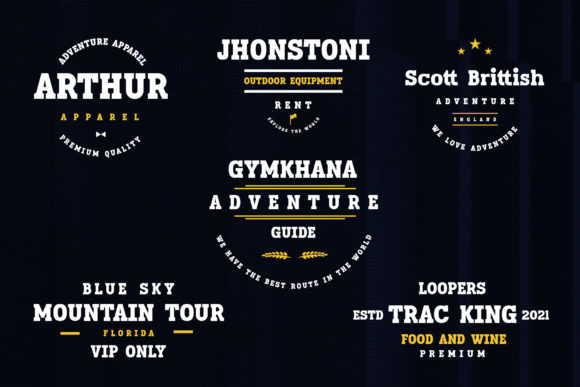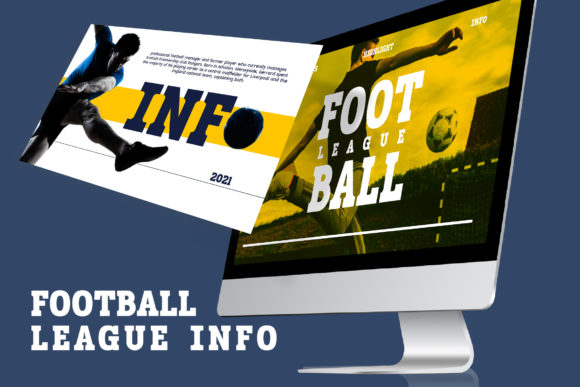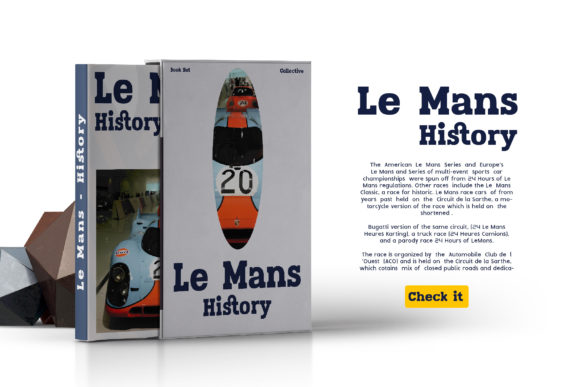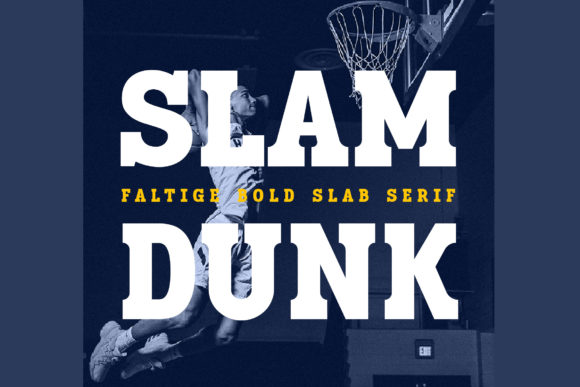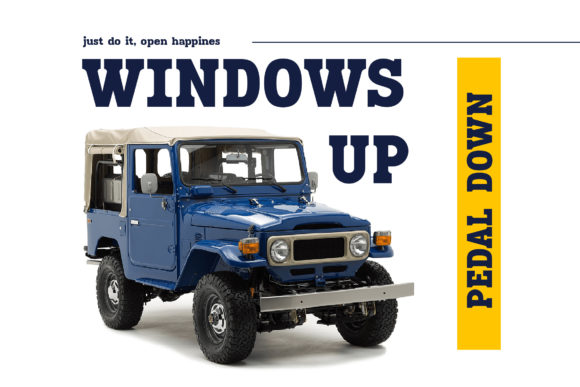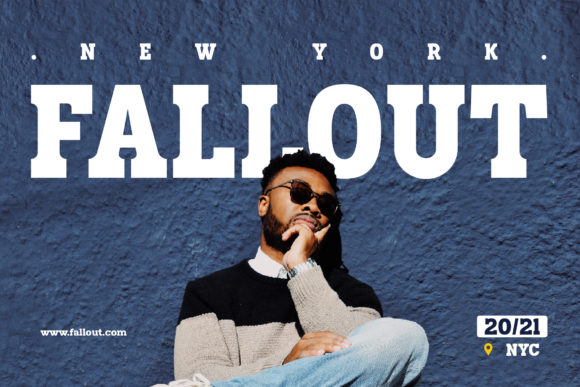
Introducing Faltige Font: Elevate Your Designs with a Bold Slab Serif
In the world of typography, a good font can make all the difference in creating visually stunning designs. If you’re a designer or crafter looking for a unique touch to elevate your projects, look no further than the Faltige Font. This bold slab serif font is expertly designed to make your creations stand out and leave a lasting impression.
What is Faltige Font?
Faltige is a carefully crafted bold slab serif font that exudes confidence and sophistication. Its sturdy and robust design makes it perfect for a wide range of applications, from web designs and business cards to posters, flyers, and more. With its distinctive character, Faltige Font is sure to add a touch of personality to any project.
Key Features of Faltige Font
- Bold and Eye-Catching: Faltige Font is designed to grab attention and make a statement. Its bold and sturdy design ensures that your text stands out from the crowd.
- Slab Serif Style: The font features a classic slab serif style, which adds a touch of sophistication and elegance to any design.
- Versatile: Faltige Font is incredibly versatile and can be used for a wide range of projects, from digital designs to print materials.
- Unique Touch: With its distinctive character, Faltige Font adds a unique touch to any design, setting it apart from more generic fonts.
Use Cases for Faltige Font
Faltige Font is an incredibly versatile font that can be used for a wide range of projects. Here are some use cases to get you started:
- Web Designs: Use Faltige Font to add a bold and eye-catching touch to your website headers, titles, and more.
- Business Cards: Make a lasting impression with Faltige Font on your business cards, adding a touch of sophistication and elegance.
- Posters and Flyers: Use Faltige Font to create stunning posters and flyers that grab attention and leave a lasting impression.
- Social Media Graphics: Add a unique touch to your social media graphics, including Facebook posts, Instagram stories, and more.
Tips for Using Faltige Font
To get the most out of Faltige Font, here are some tips to keep in mind:
- Experiment with Sizes: Faltige Font looks great in a variety of sizes, from small captions to large headlines.
- Pair with Other Fonts: Try pairing Faltige Font with other fonts to create a unique and visually appealing combination.
- Use for Headlines: Faltige Font is perfect for headlines and titles, adding a bold and eye-catching touch to any design.
In conclusion, Faltige Font is a bold and versatile slab serif font that’s perfect for designers and crafters looking to elevate their designs. With its distinctive character and wide range of use cases, Faltige Font is sure to become a staple in your font library. So why wait? Download Faltige Font today and take your designs to the next level!